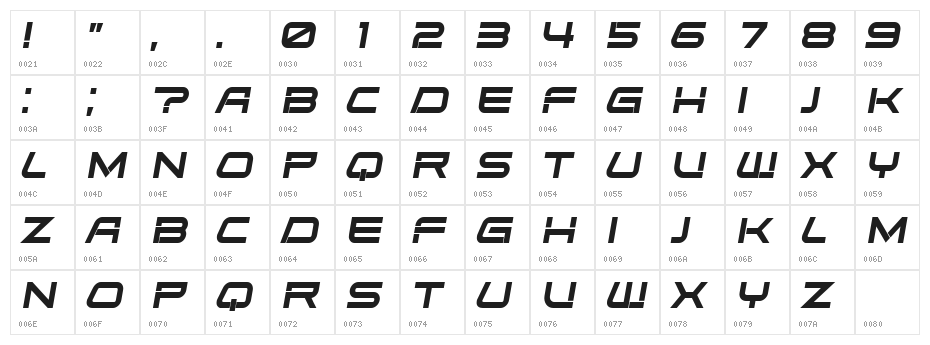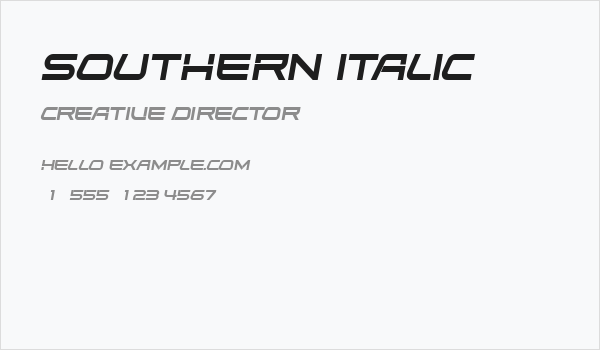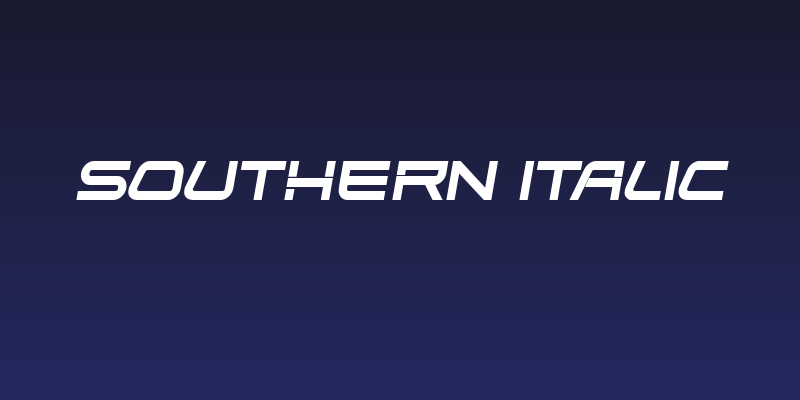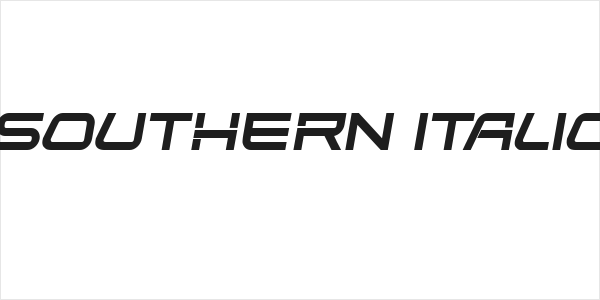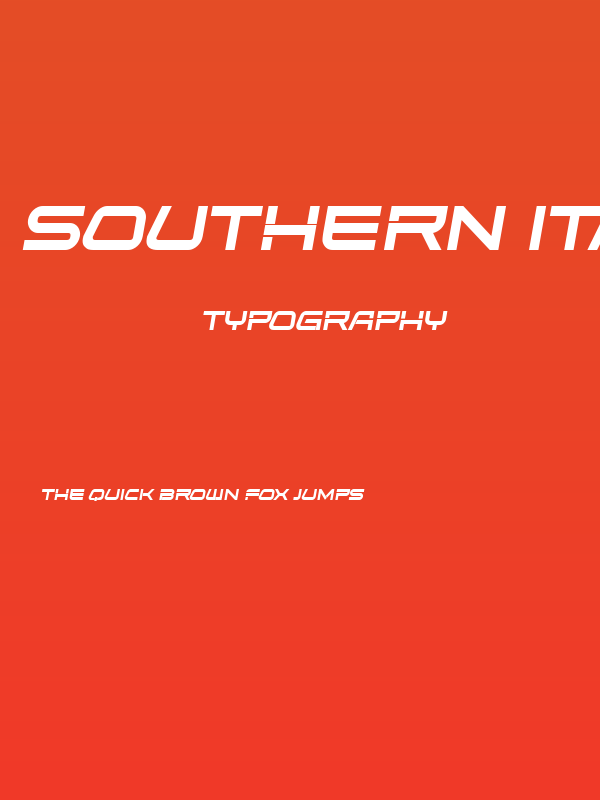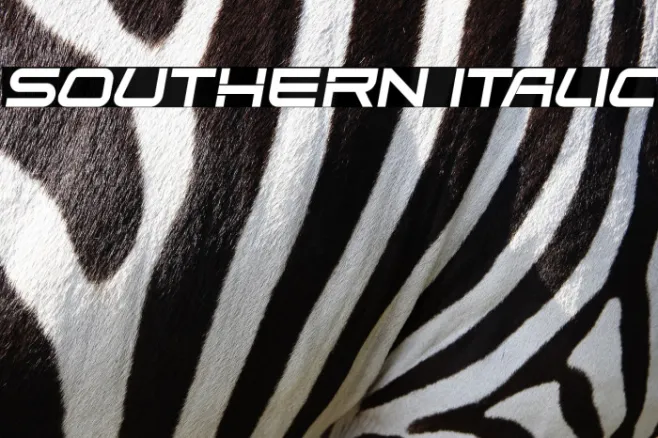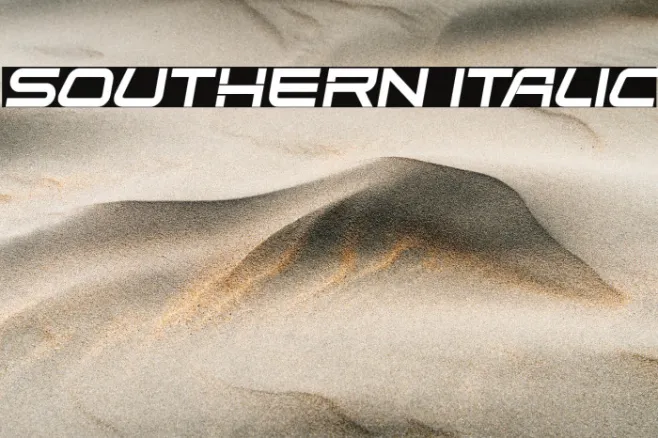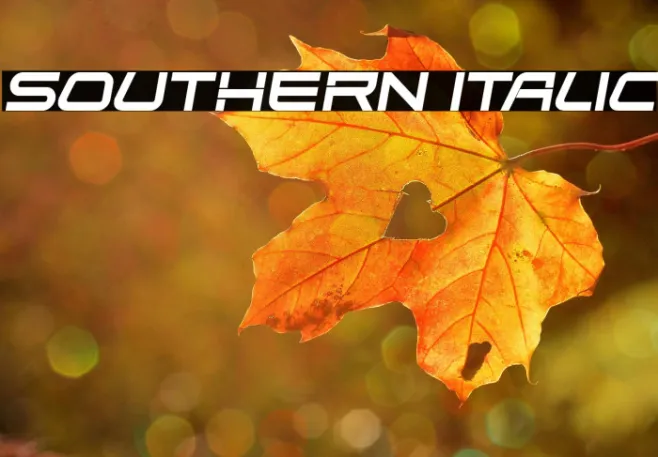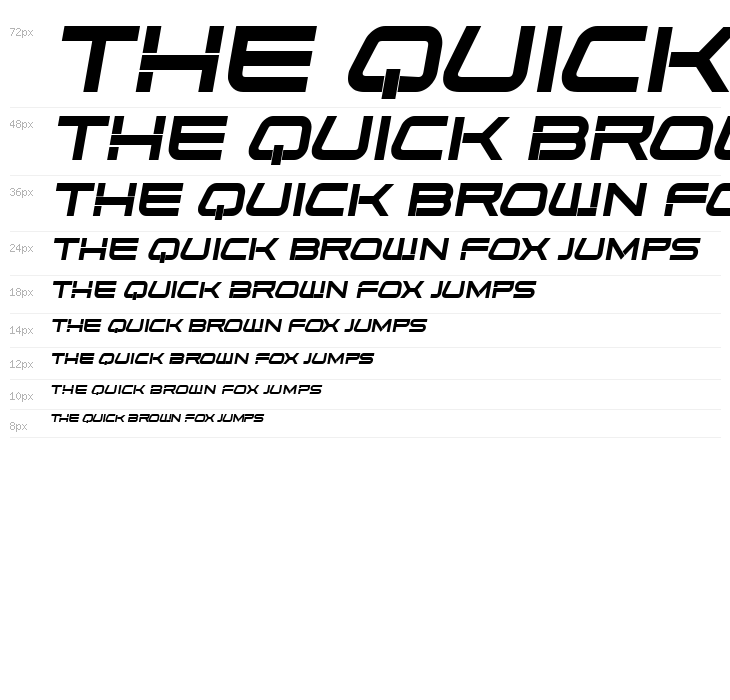
Southern Italic Font
Southern Italic Description
This font features a dynamic and futuristic design with a distinct italic slant, giving it a sense of motion and speed. The characters are bold and angular, with sharp edges and a geometric structure that enhances its modern appeal. The uppercase and lowercase letters maintain a consistent style, while the numerals and special characters complement the overall aesthetic. The font's unique style makes it suitable for projects that require a contemporary and energetic look.
| Use Case | Logos, Headlines, Branding |
| Proposed Projects | Ideal for technology branding, sports team logos, automotive advertisements, and video game titles. |